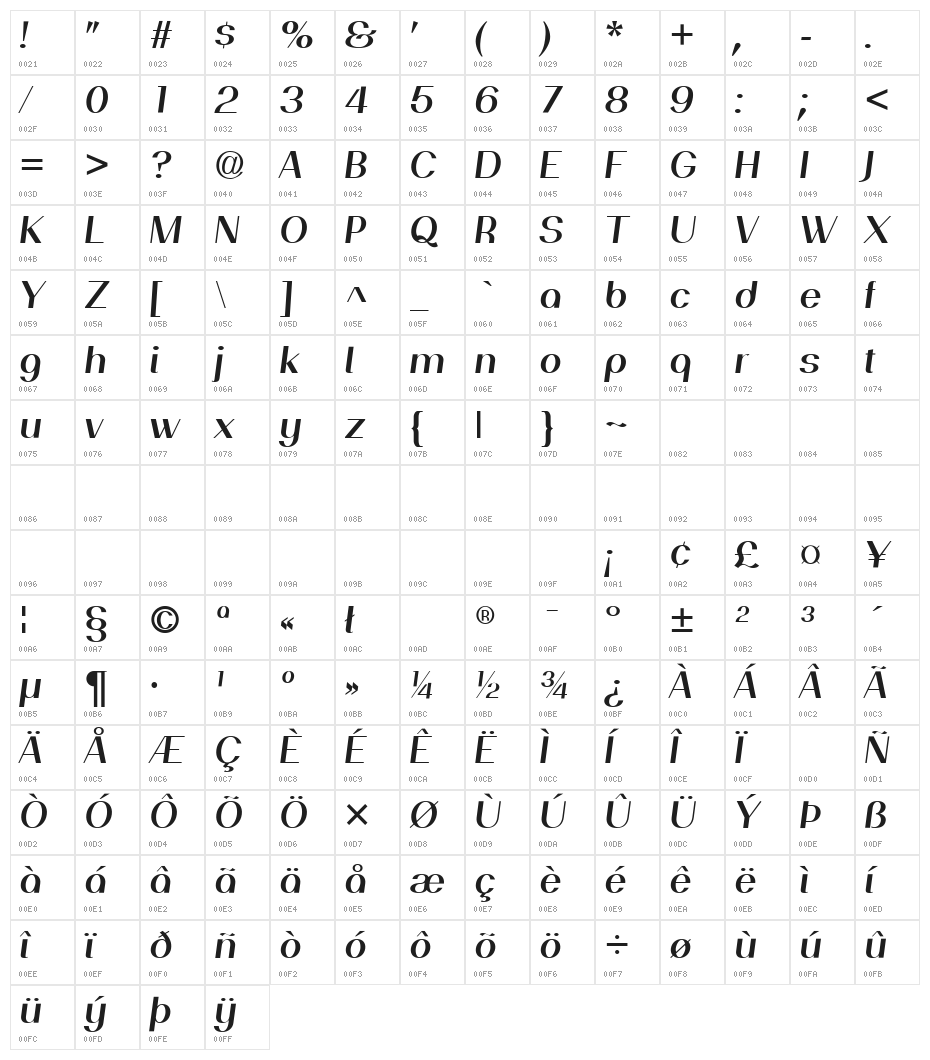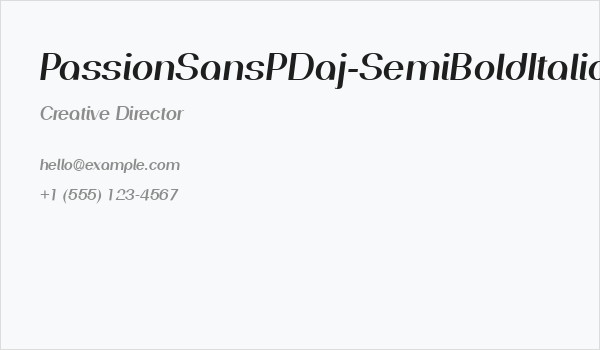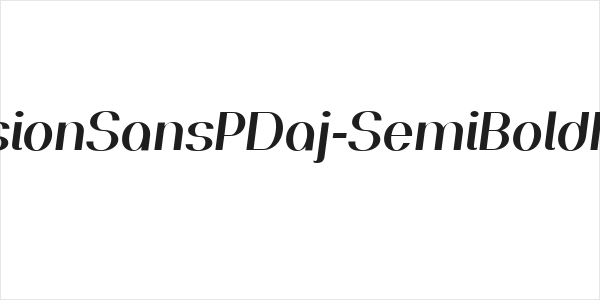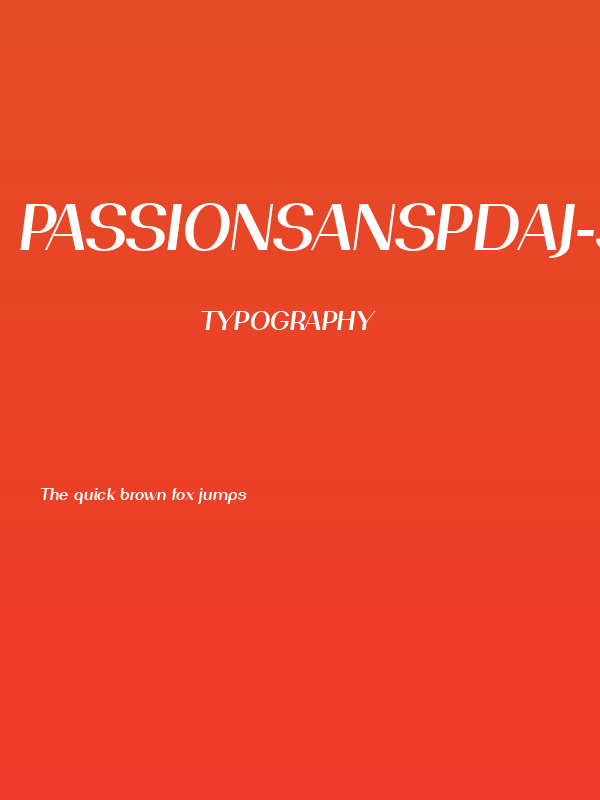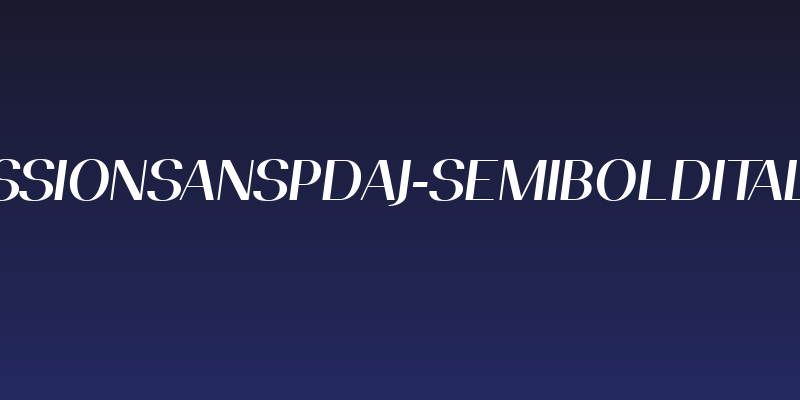
PassionSansPDaj-SemiBoldItalic Font
PassionSansPDaj-SemiBoldItalic Description
This font exhibits a sleek and modern sans-serif style with a semi-bold weight. The italicized form adds a dynamic and forward-leaning appearance, enhancing its contemporary aesthetic. The characters are well-defined with smooth curves and clean lines, contributing to its readability and elegance. The uppercase letters are slightly taller than the lowercase, maintaining a consistent flow across the text. The numerals are proportionate and align well with the overall design, while the special characters are distinct and harmonize with the alphabetic characters. This font's design is versatile, making it suitable for various applications.